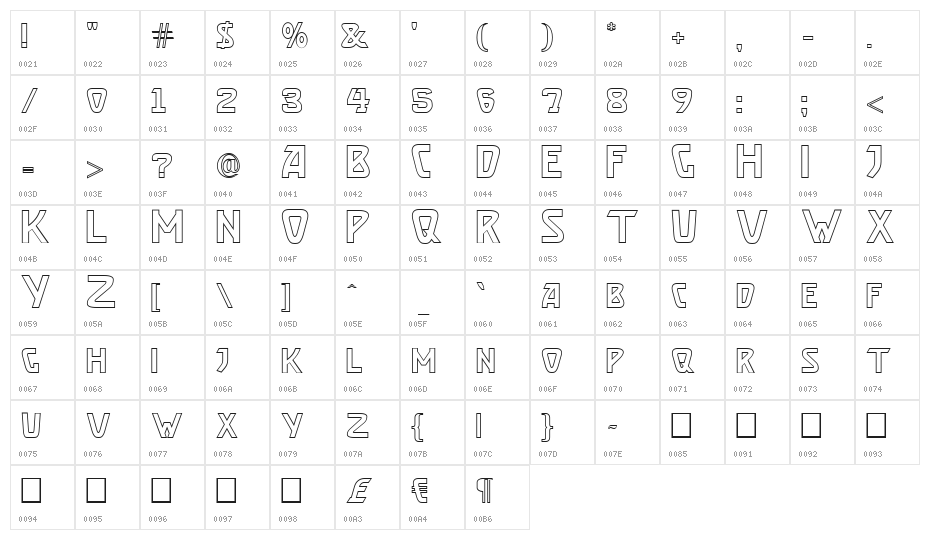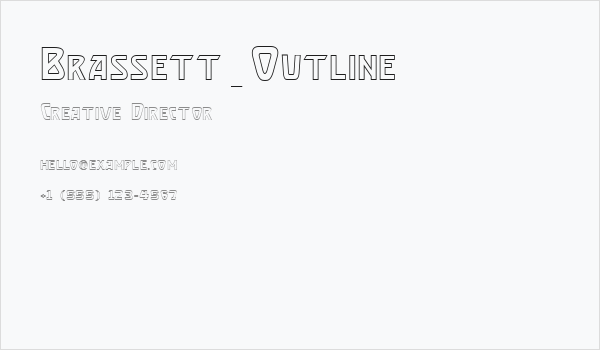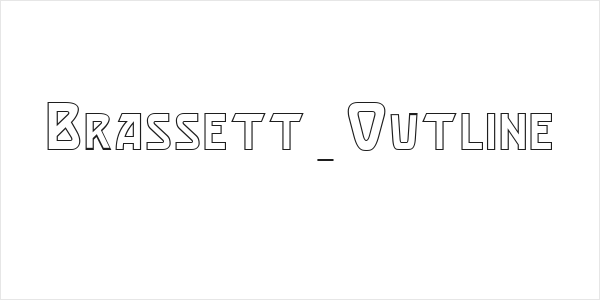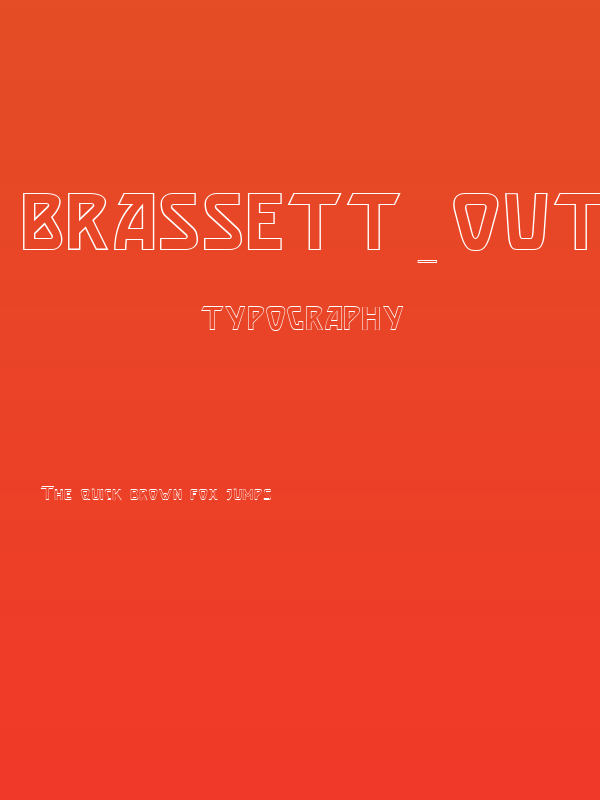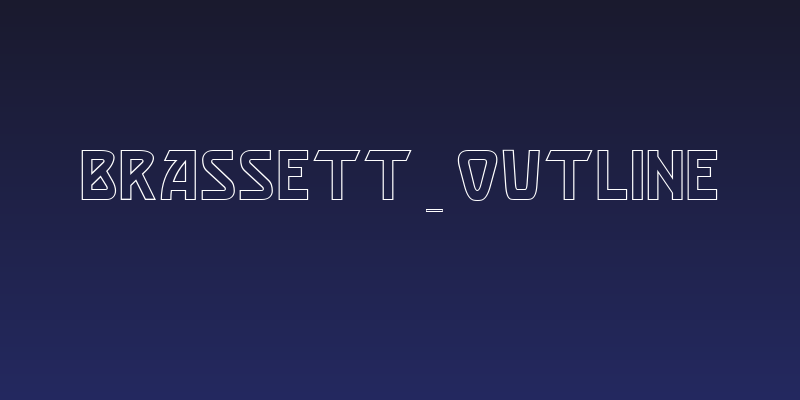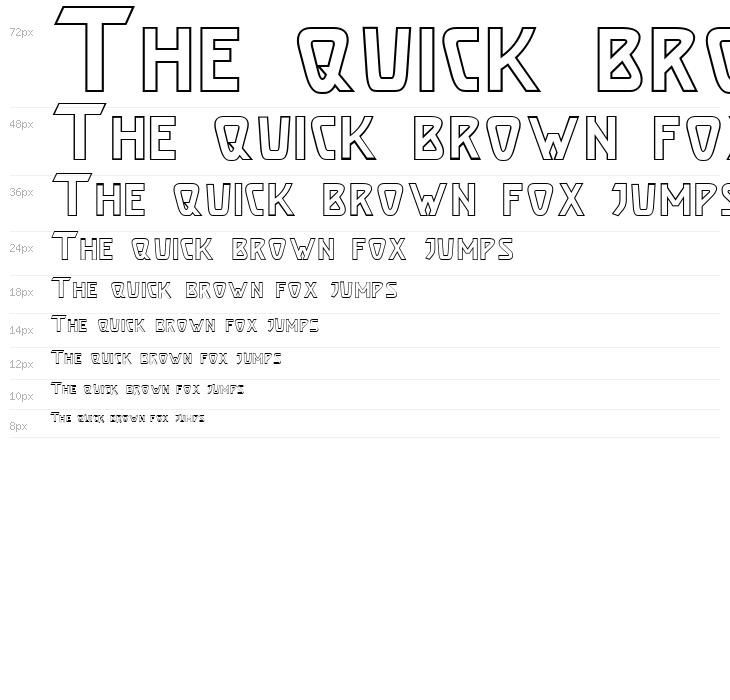
Brassett_Outline Font
Brassett_Outline Description
This font features a bold, geometric outline style that gives it a modern and edgy appearance. The characters are crafted with sharp angles and clean lines, creating a sense of structure and precision. The uppercase letters are particularly striking, with unique shapes that make each character stand out. The lowercase letters maintain the same geometric theme, ensuring consistency throughout the typeface. Numbers and special characters are designed with the same attention to detail, making them easily readable while maintaining the font's distinctive style. This font is ideal for projects that require a contemporary and bold aesthetic.
| Proposed Projects | Ideal for branding, posters, headlines, and any design project that requires a modern and bold aesthetic. |